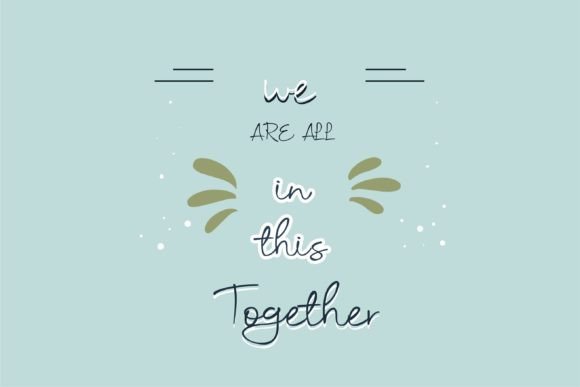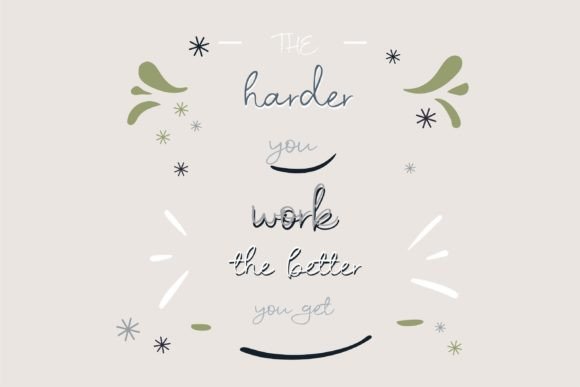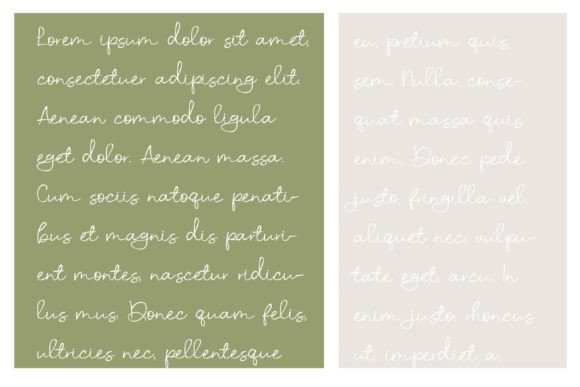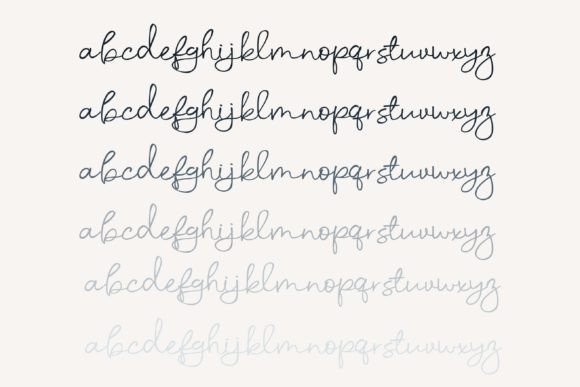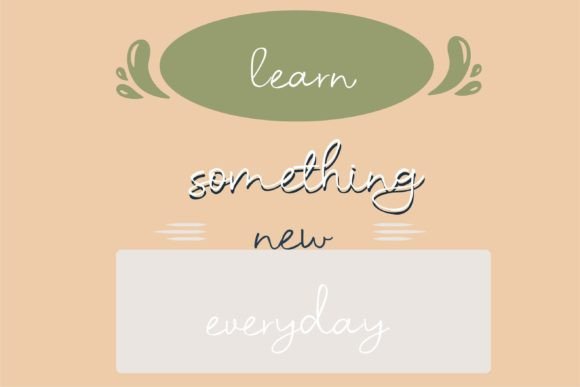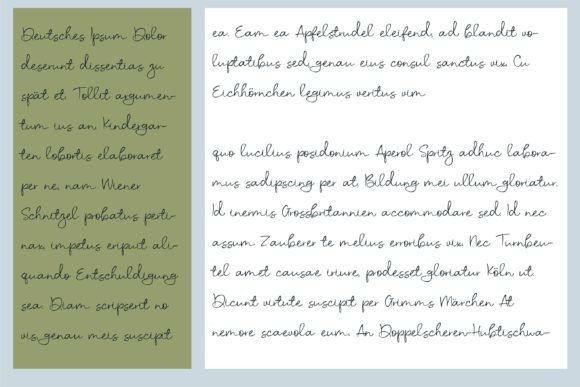
Delegate Font
About Delegate Font
“Delegate” is a quirky handwritten font that captures the natural characteristics of hand lettering. Created with a handcrafted touch, this font is well-suited for various applications such as websites, SVG designs, home decor, branding, blogs, logos, invitations, and more. The hand-written script style of “Delegate” is characterized by its rushed and casual feel.
The unique and playful qualities of “Delegate” make it an excellent choice for projects that demand a personalized and creative touch. Whether you’re working on digital designs, branding materials, or invitations, this font is designed to stand out and bring a sense of quirkiness and creativity to your work.
Embrace the rushed and casual feel of “Delegate” to add a touch of whimsy to your projects. Its handwritten charm can contribute to a variety of design endeavors, making it a versatile choice for those seeking a distinctive and creative font. Let “Delegate” be the font that brings a playful and quirky element to your designs.